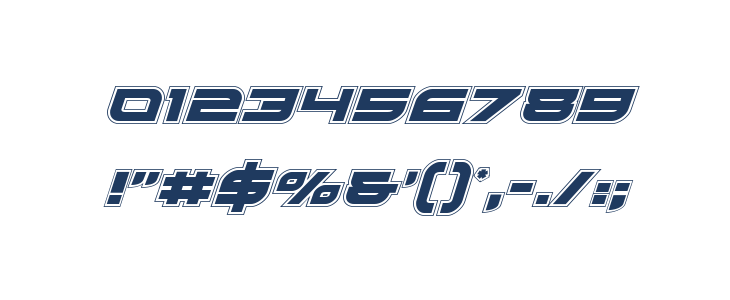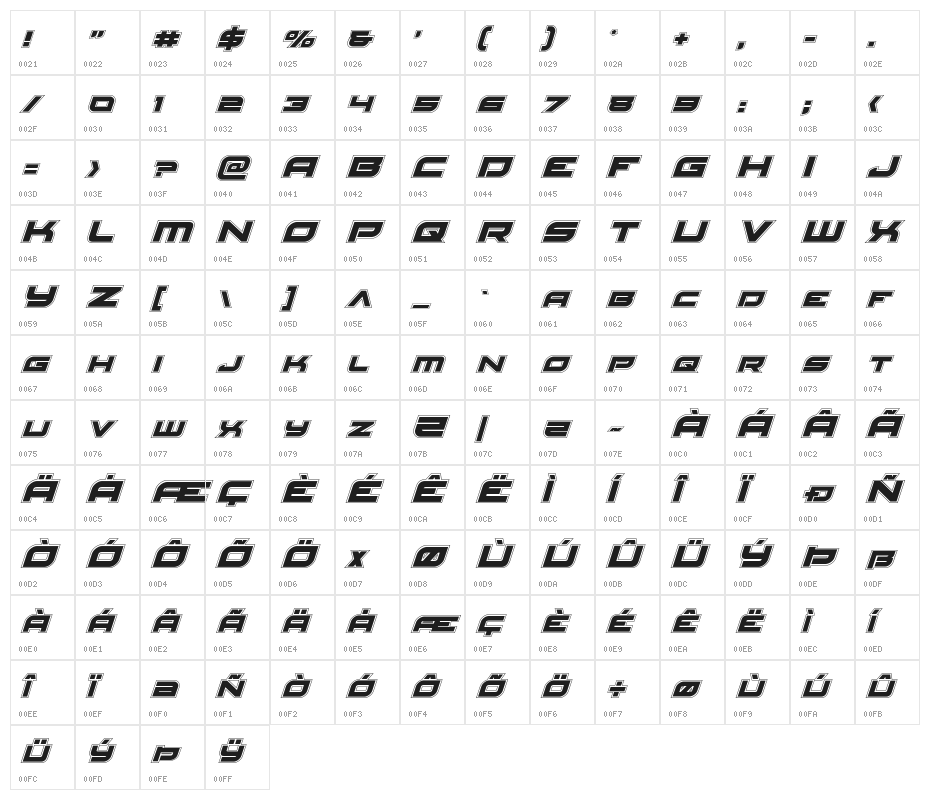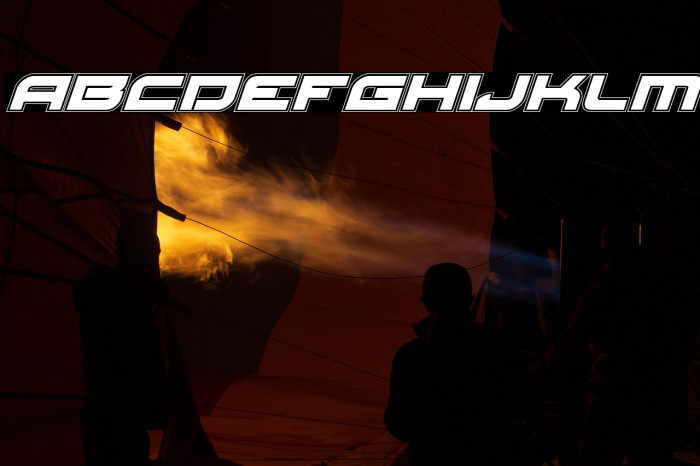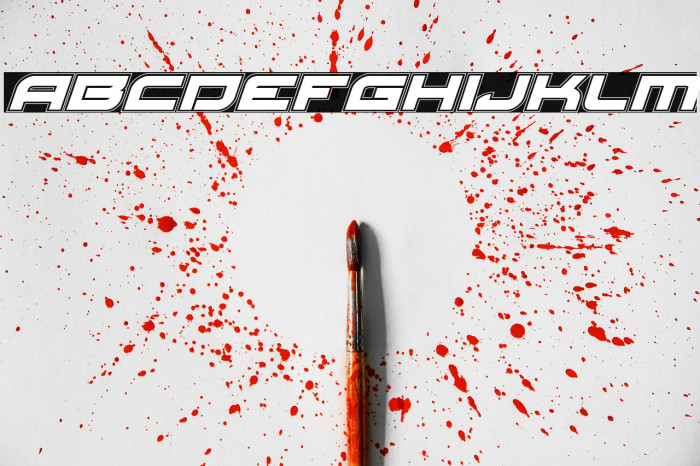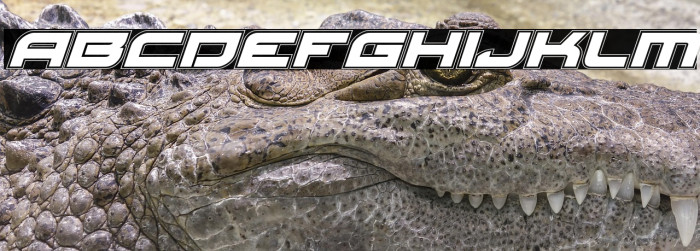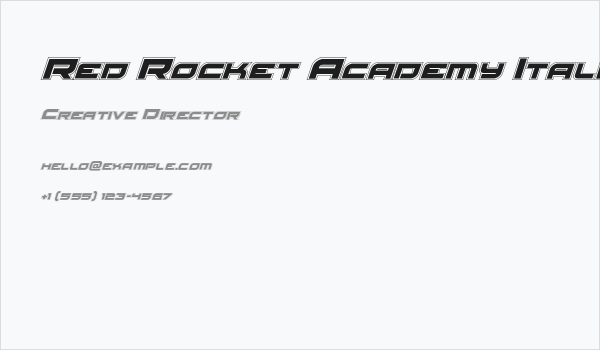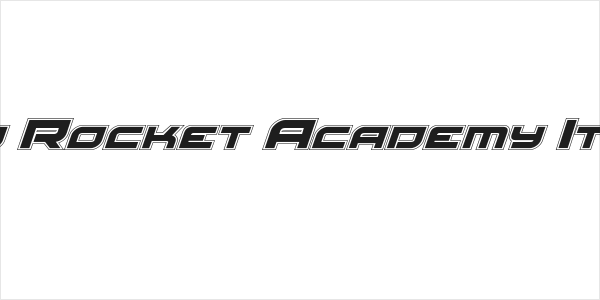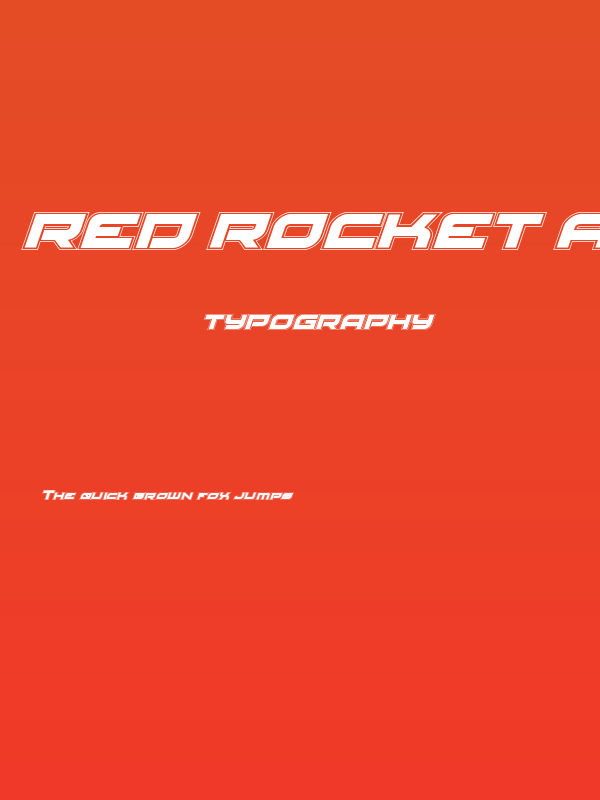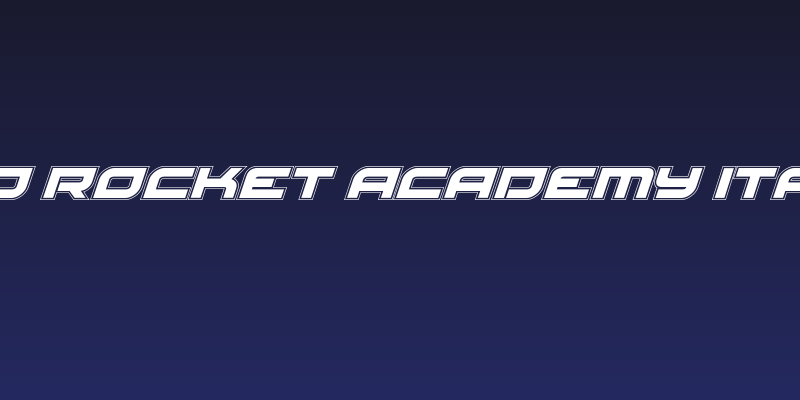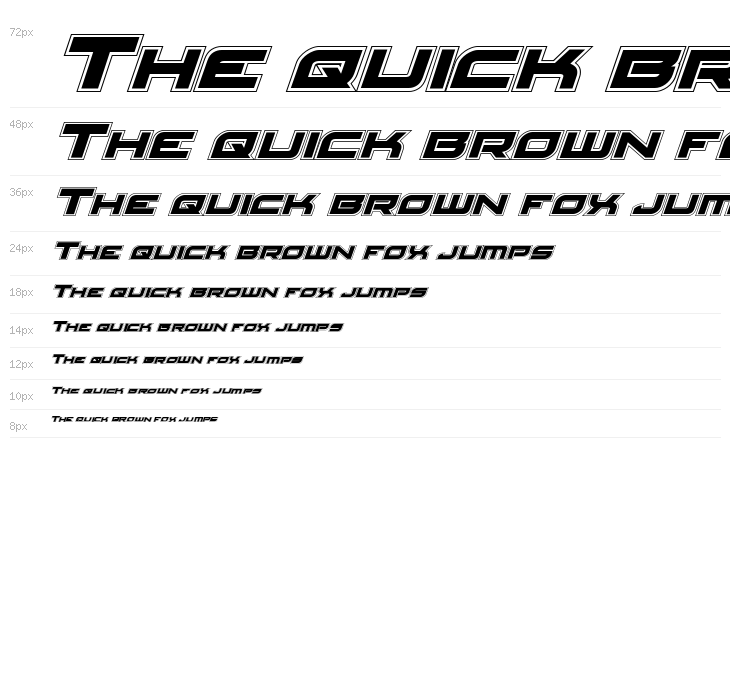
Red Rocket Academy Italic Font
Red Rocket Academy Italic Description
This font features a bold, futuristic design with a strong emphasis on geometric shapes and sharp angles. The italicized style adds a dynamic and forward-moving feel, making it ideal for projects that require a sense of speed and modernity. The characters are outlined, giving them a three-dimensional appearance that enhances their visual impact. The uppercase and lowercase letters maintain a consistent style, ensuring uniformity across different text sizes. The numerals and special characters are designed to match the bold and angular aesthetic, providing a cohesive look throughout.
| Proposed Projects | Ideal for sci-fi themed projects, technology branding, video game titles, and dynamic posters. |